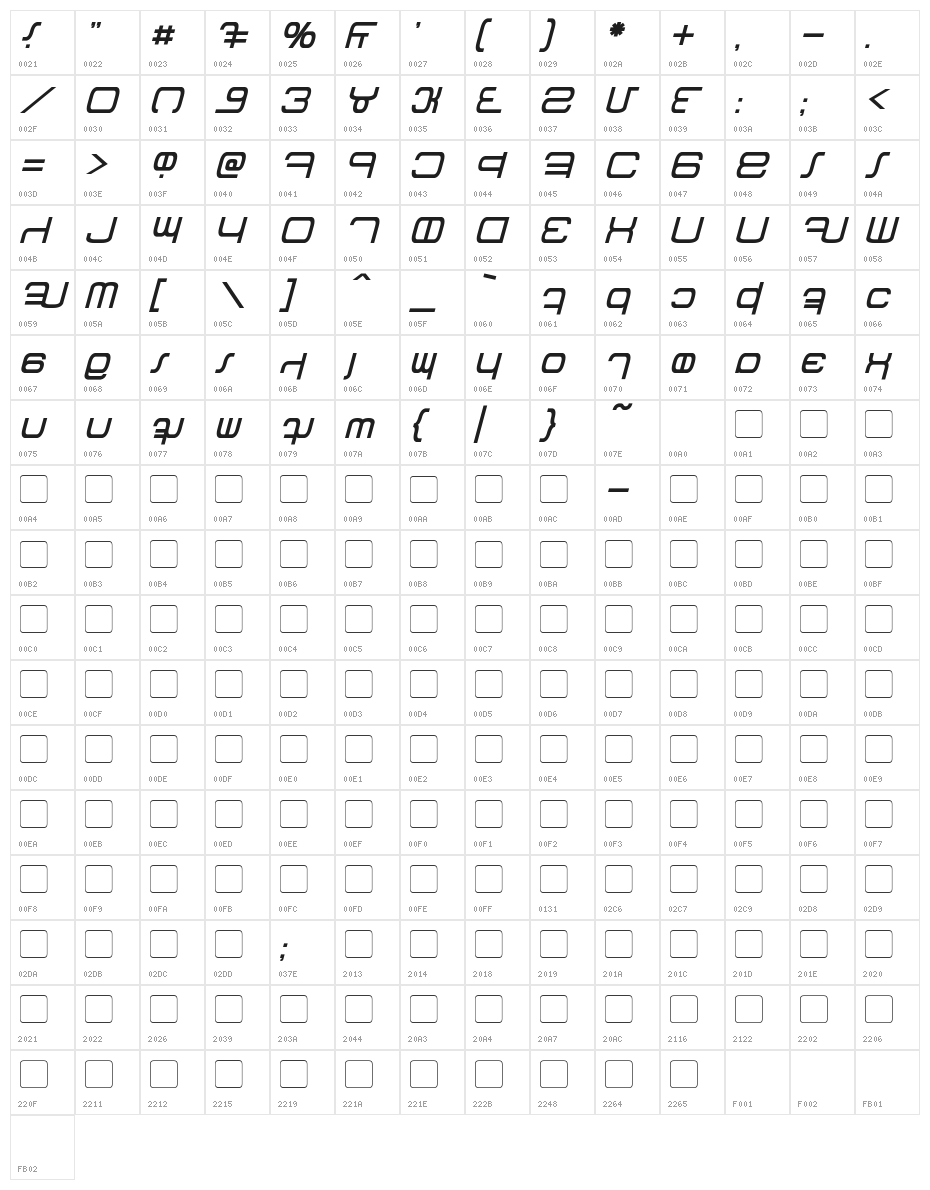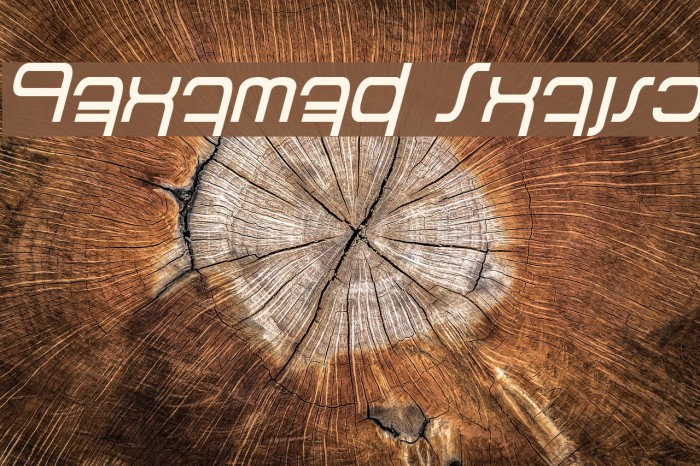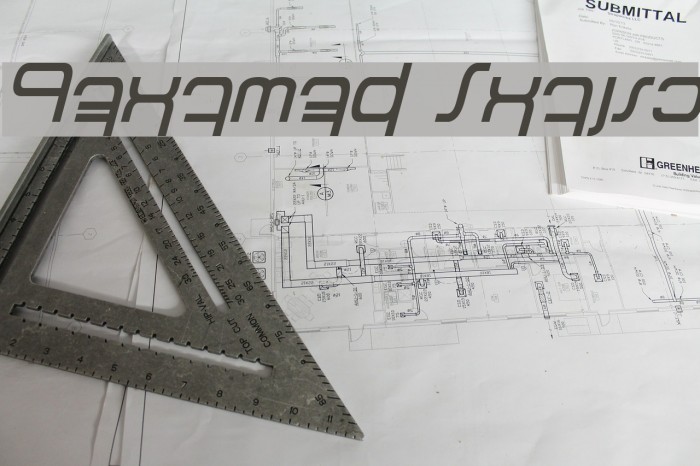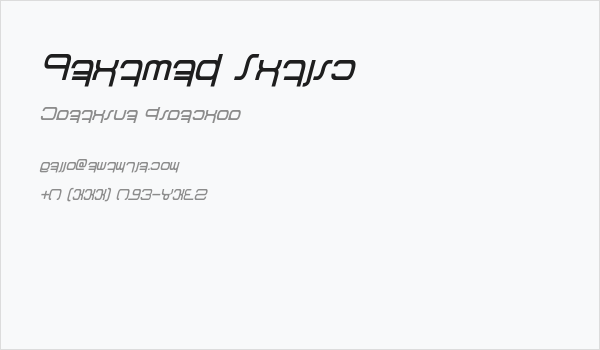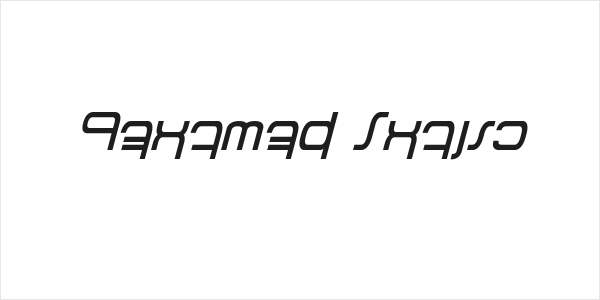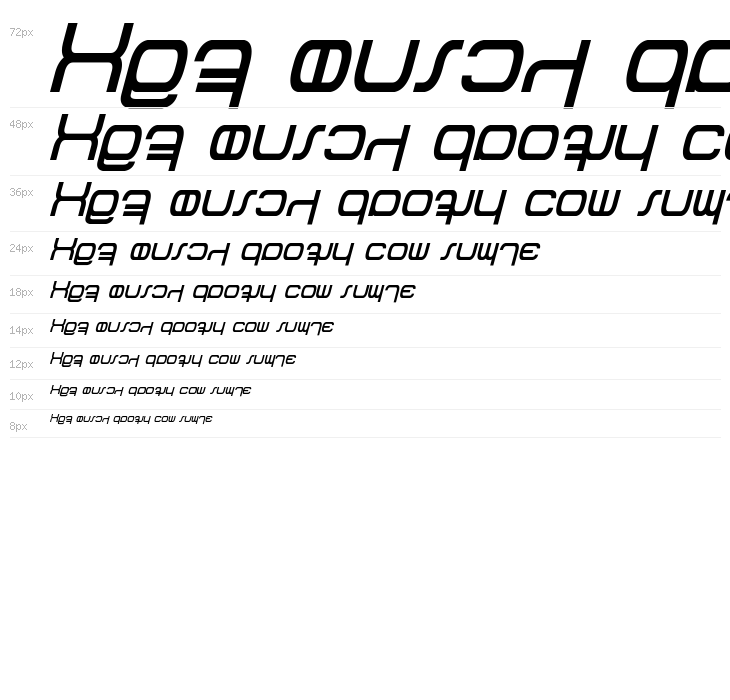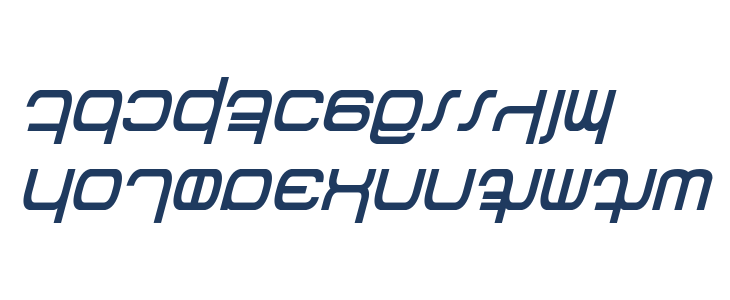
Betazed Italic Font
Betazed Italic Description
This font features a futuristic and sleek design, characterized by its italicized, forward-leaning letters that convey a sense of motion and modernity. The characters are constructed with clean, geometric lines and sharp angles, giving it a technical and digital feel. The uppercase and lowercase letters maintain a consistent style, with a uniform stroke width that enhances readability. The numerals and special characters are designed to match the overall aesthetic, ensuring a cohesive look across all text elements. This font's unique style makes it ideal for projects that require a contemporary and innovative appearance.
| Use Case | Headlines, Logos, Digital interfaces |
| Proposed Projects | Ideal for technology branding, sci-fi themed designs, digital interfaces, and modern advertising. |